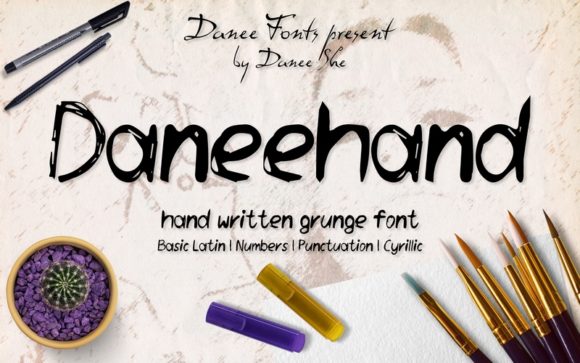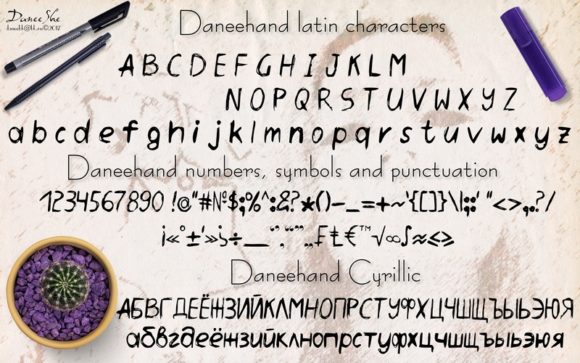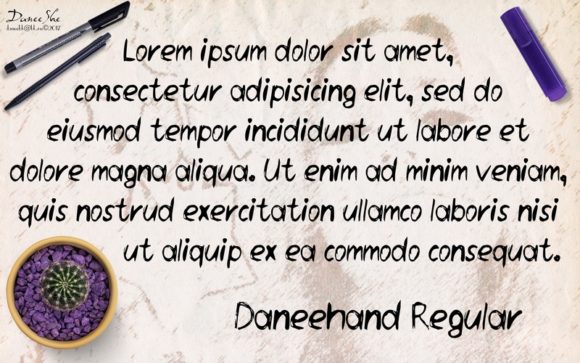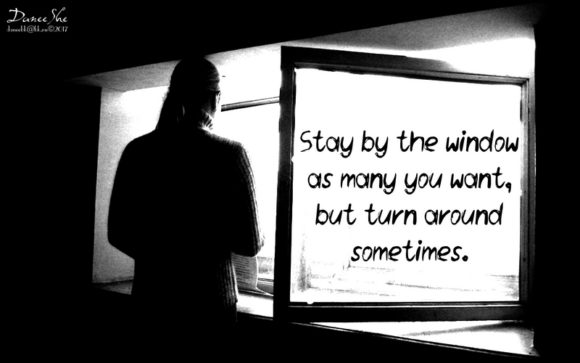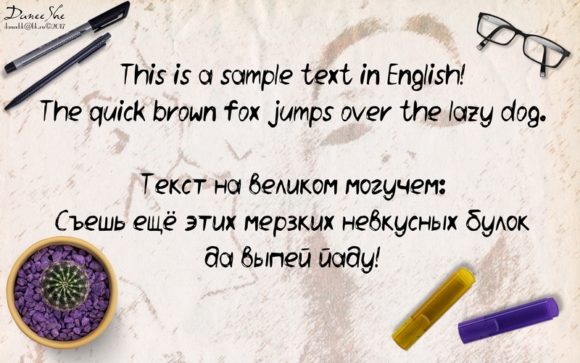
Daneehand Font
About Daneehand Font
Daneehand is a modern handwritten font with a grunge style. It will elevate a wide range of design projects to the highest level, be it branding, headings, invitations, signatures, logos, labels, and much more!